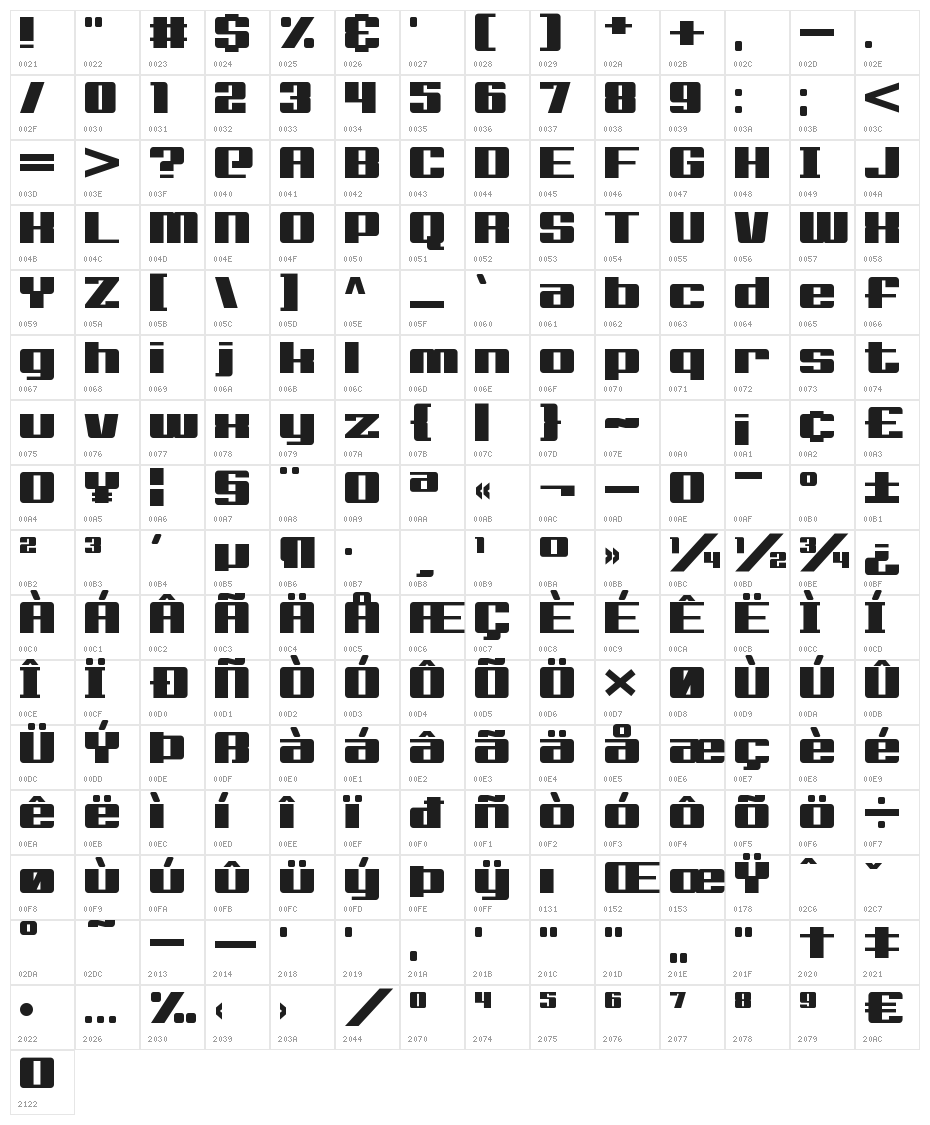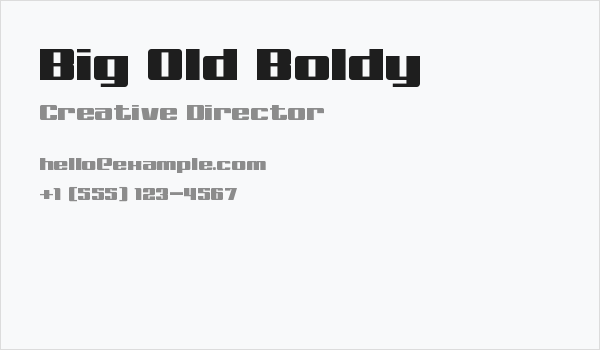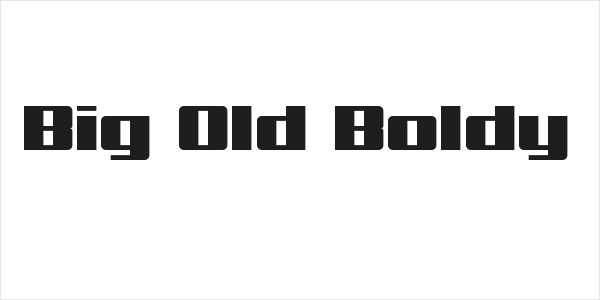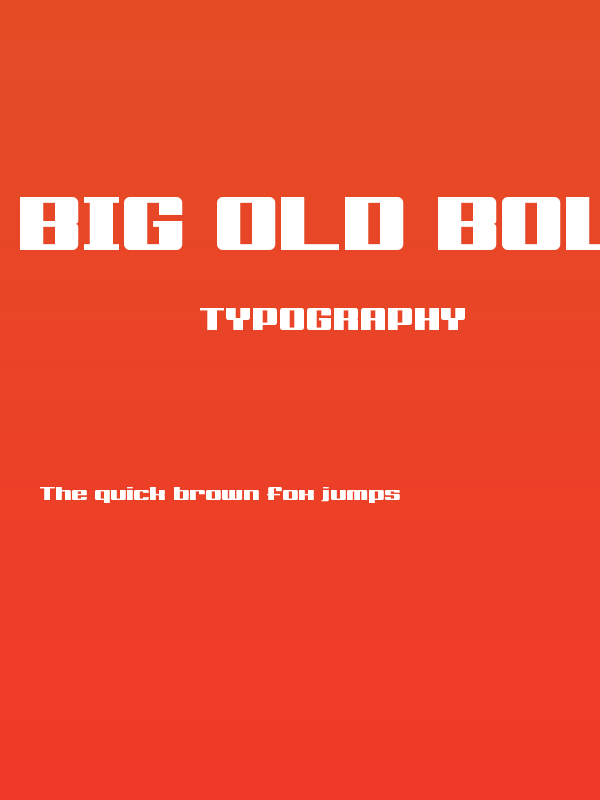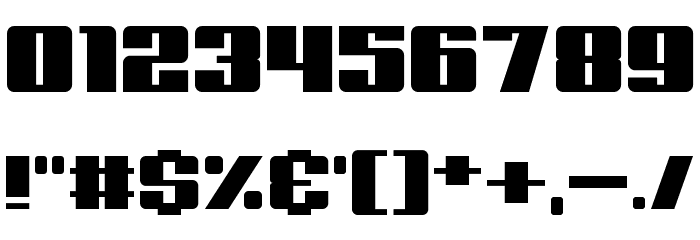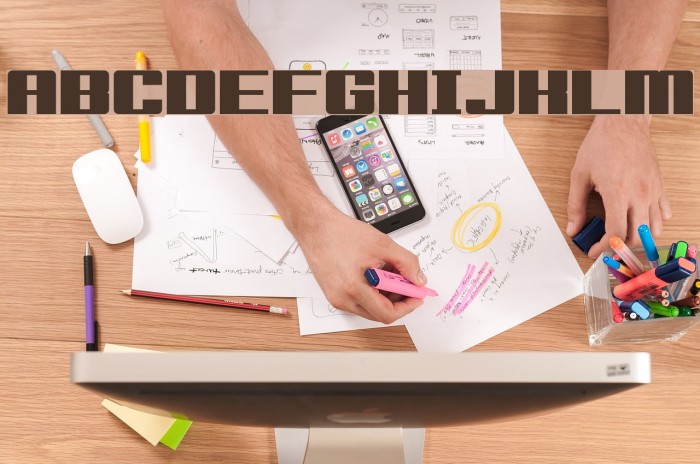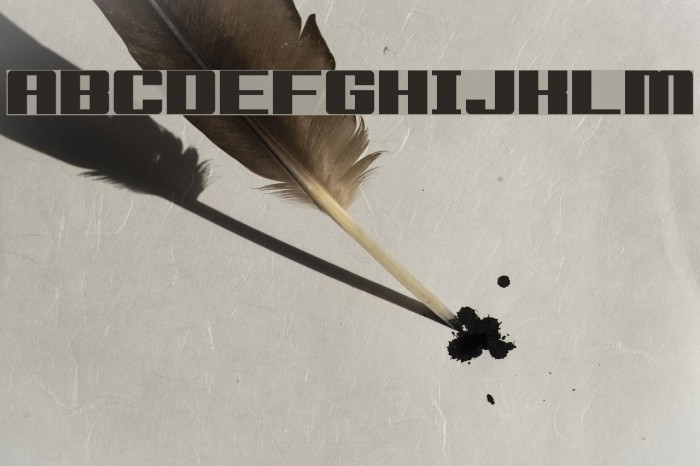
Big Old Boldy Font
Big Old Boldy Description
This font features a bold and robust design with strong geometric shapes and a blocky appearance. The uppercase letters are uniform in height, creating a powerful and imposing look. The lowercase letters maintain the boldness with slightly rounded edges, providing a subtle contrast to the sharpness of the uppercase. Numbers are equally bold, ensuring visibility and impact. Special characters are designed to match the overall aesthetic, maintaining consistency across all glyphs. This font is ideal for making a statement, with its heavy weight and solid presence.
| Proposed Projects | This font is perfect for projects that require a strong visual impact, such as posters, headlines, logos, and branding materials. |